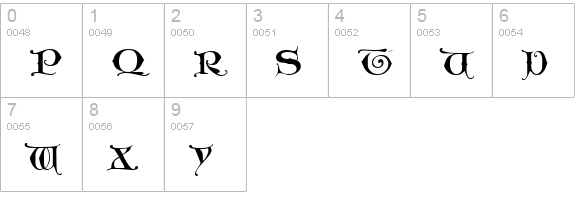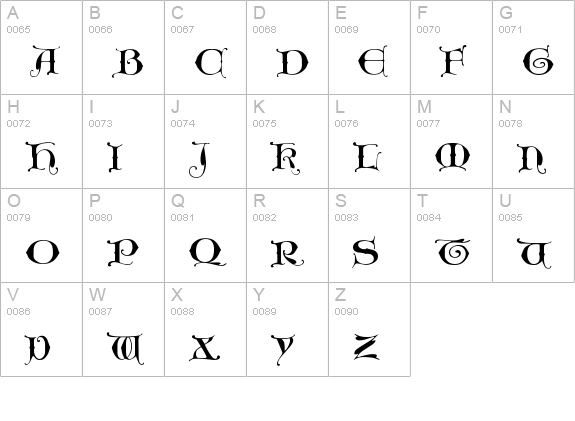
UncioGothic Font Details
Introducing UncioGothic, a captivating font that combines the elegance of Gothic letterforms with a modern twist. This unique typeface is perfect for adding a touch of sophistication to your designs, whether you're working on branding projects, editorial layouts, or even personal creations. With its sharp, angular shapes and distinct serifs, UncioGothic commands attention and exudes a sense of timeless beauty. Its bold presence on the page makes a statement, while still maintaining a certain level of refinement and grace. Each letter is meticulously crafted, ensuring a seamless flow and legibility at any size. But what truly sets UncioGothic apart is its versatility. Whether you're aiming for a classic feel or a contemporary edge, this font adapts flawlessly to any design aesthetic. It effortlessly bridges the gap between traditional and modern, making it the perfect choice for designers seeking to create visually striking compositions. And the best part? UncioGothic is available for free download at FontsMarket.com. Yes, you read that right – absolutely free. We believe that every creative individual should have access to high-quality resources without breaking the bank, and UncioGothic is our way of making that possible. So why wait? Elevate your design projects with the bold elegance of UncioGothic. Download it for free at FontsMarket.com and unleash your creativity today.